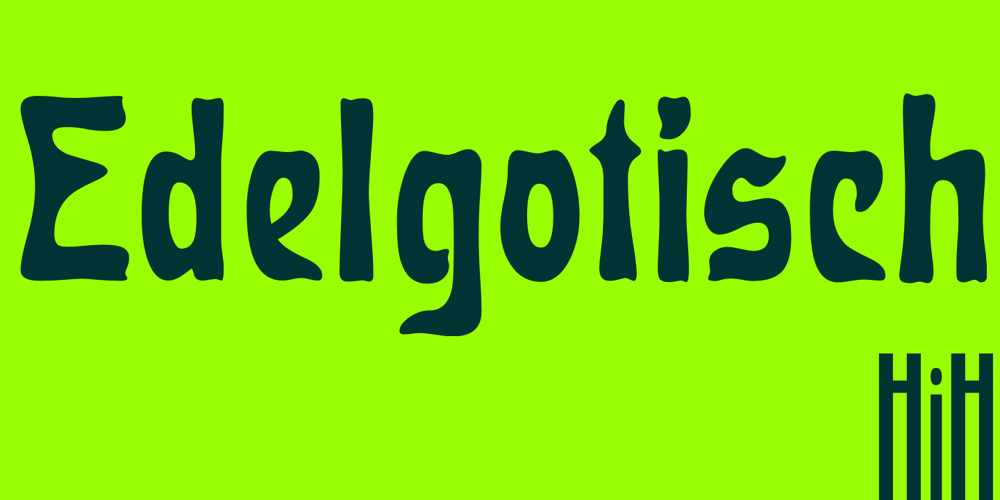
Edelgotisch
Edelgotisch font
Edelgotisch Font Family was designed by published by HiH. Edelgotisch contains 2 styles and family package options. Edelgotisch is a bold Jugendstil design that shows its strong blackletter roots. This typeface, along with a set of initial letters, was released by Schelter & Giesecke of Leipzig, Germany about 1898 and is very similar to Eckmann-Schrift released by Rudhard’schen Giesserie (later Klingspor) during the same period. One suspects they may have been in direct competition. The decorative devises of the initial letters for Edelgotisch have a simpler, bolder line than for Eckmann. In the initial letter set, the ligatures aesc (AE) and ethel (OE) were generated by embedding the ‘A’ and ‘O’ respectively inside the upper left corner of the ‘E.’ The accented caps were given similar treatment, with the exception of the cedilla. Regarding the I-diaeresis, we considered rotating the accent ninety degrees to avoid and possible misconstruction. On further reflection however, we realized it was silly and unnecessary. No one would look at the accented letterform and see anything but what it is. We have also included four decorative ornaments and a frame with each font.